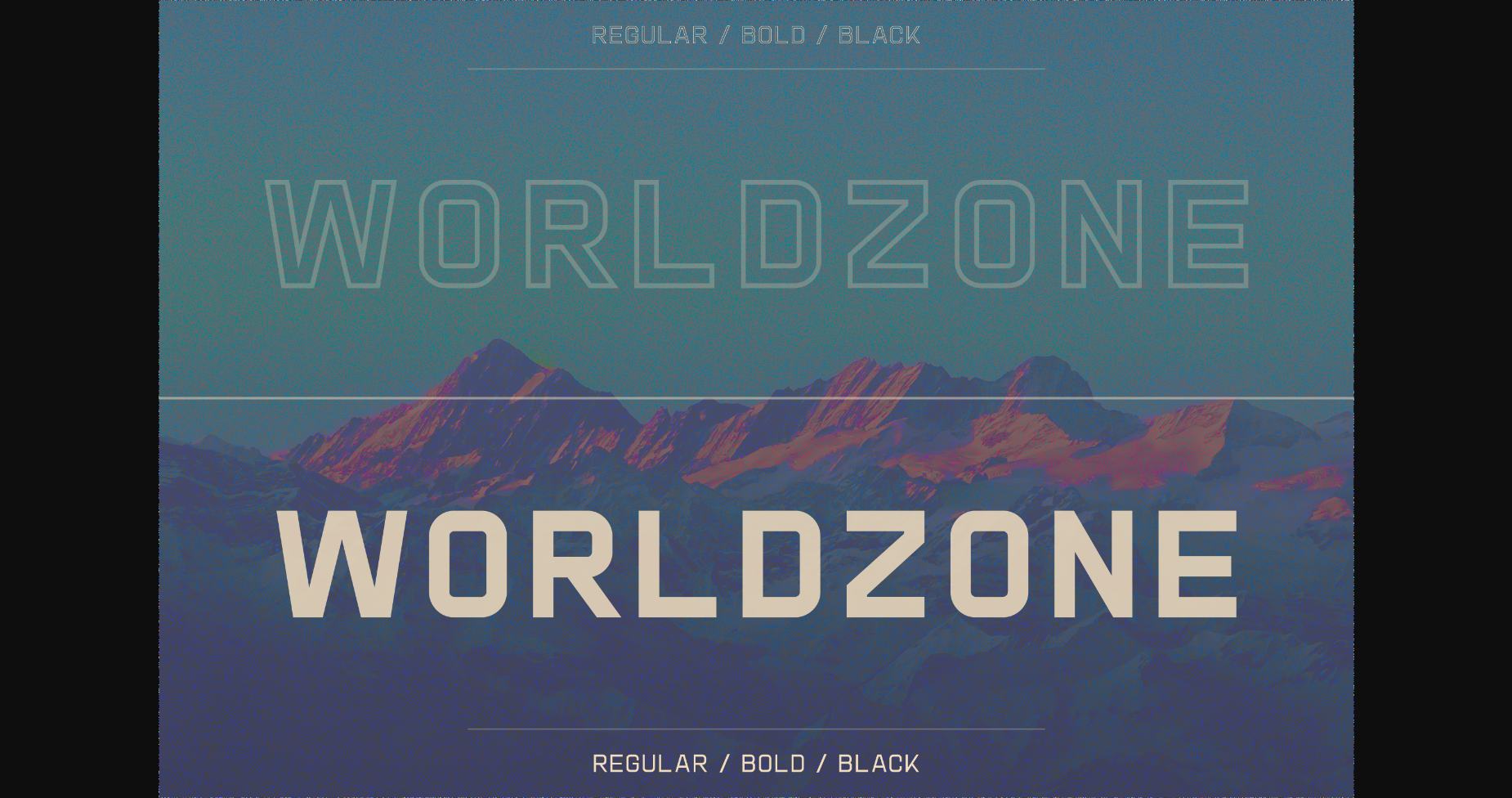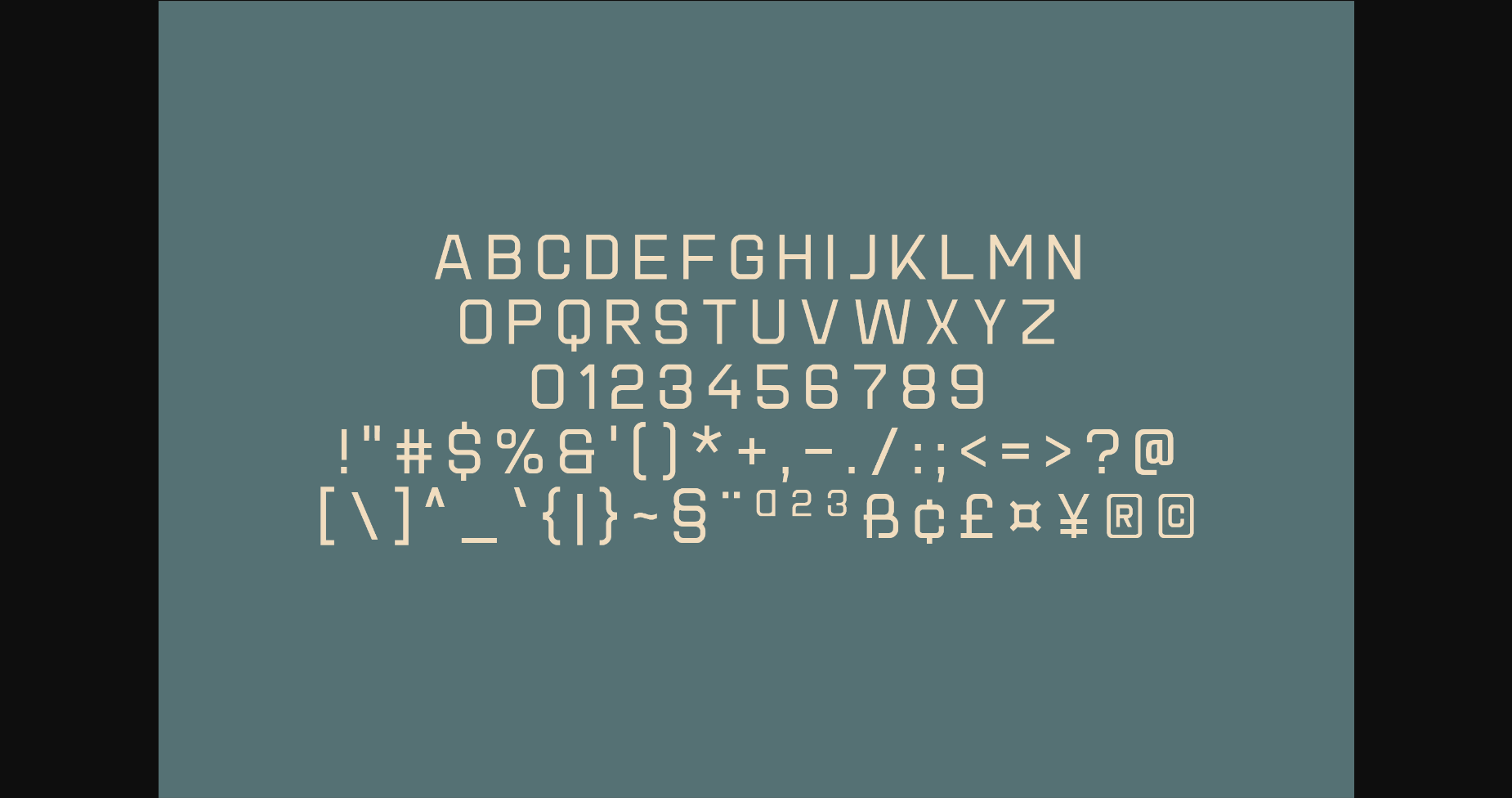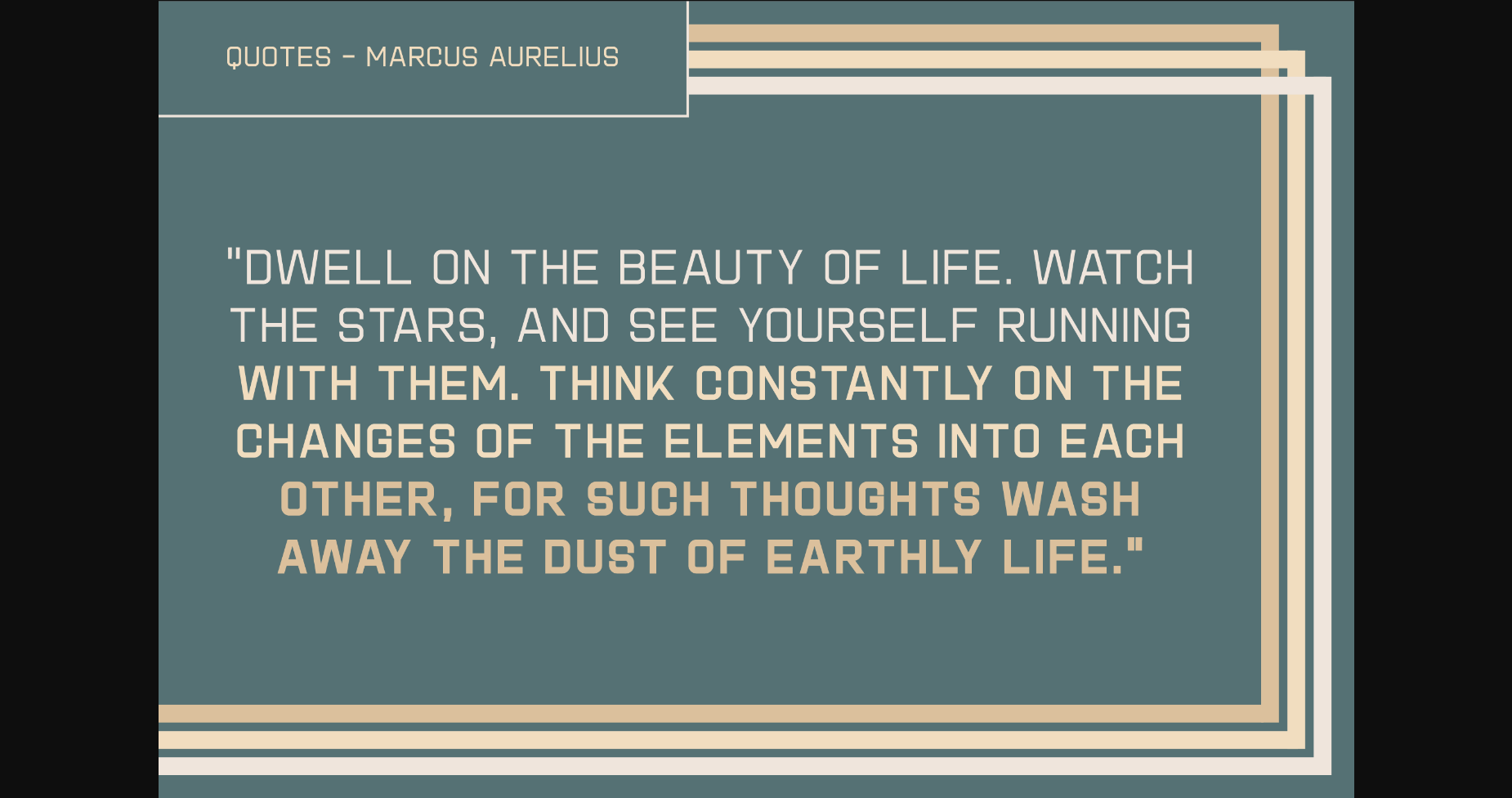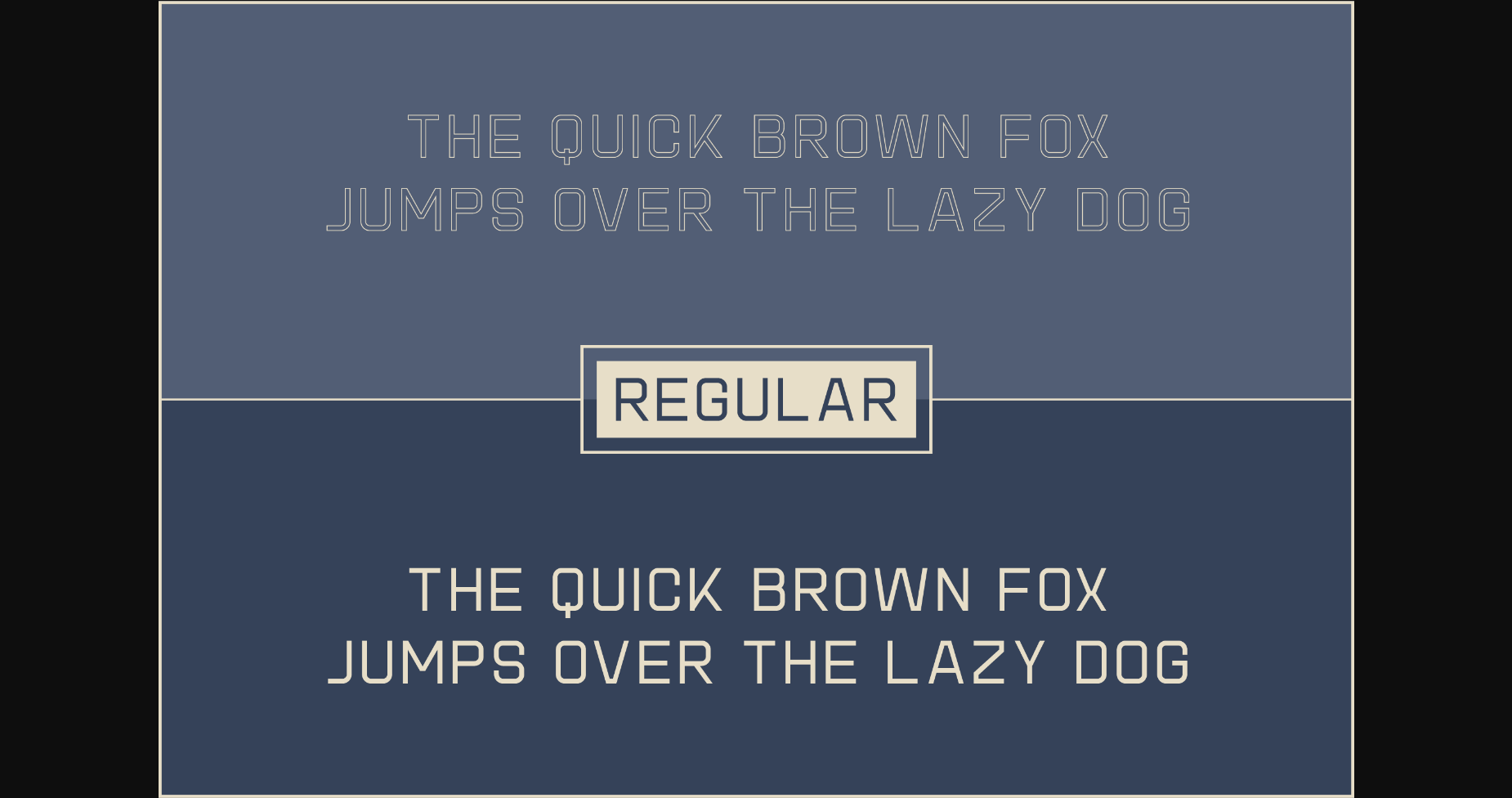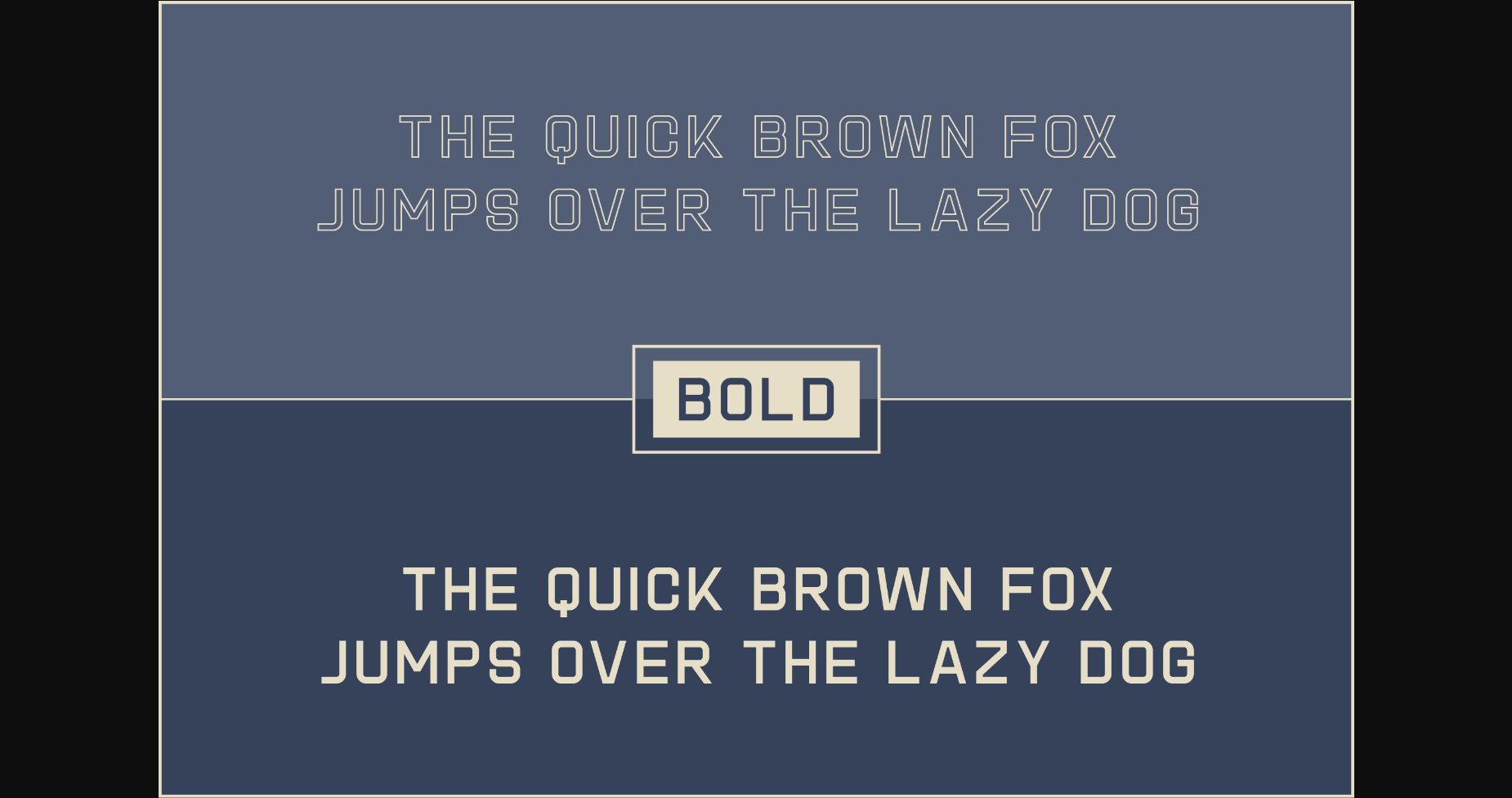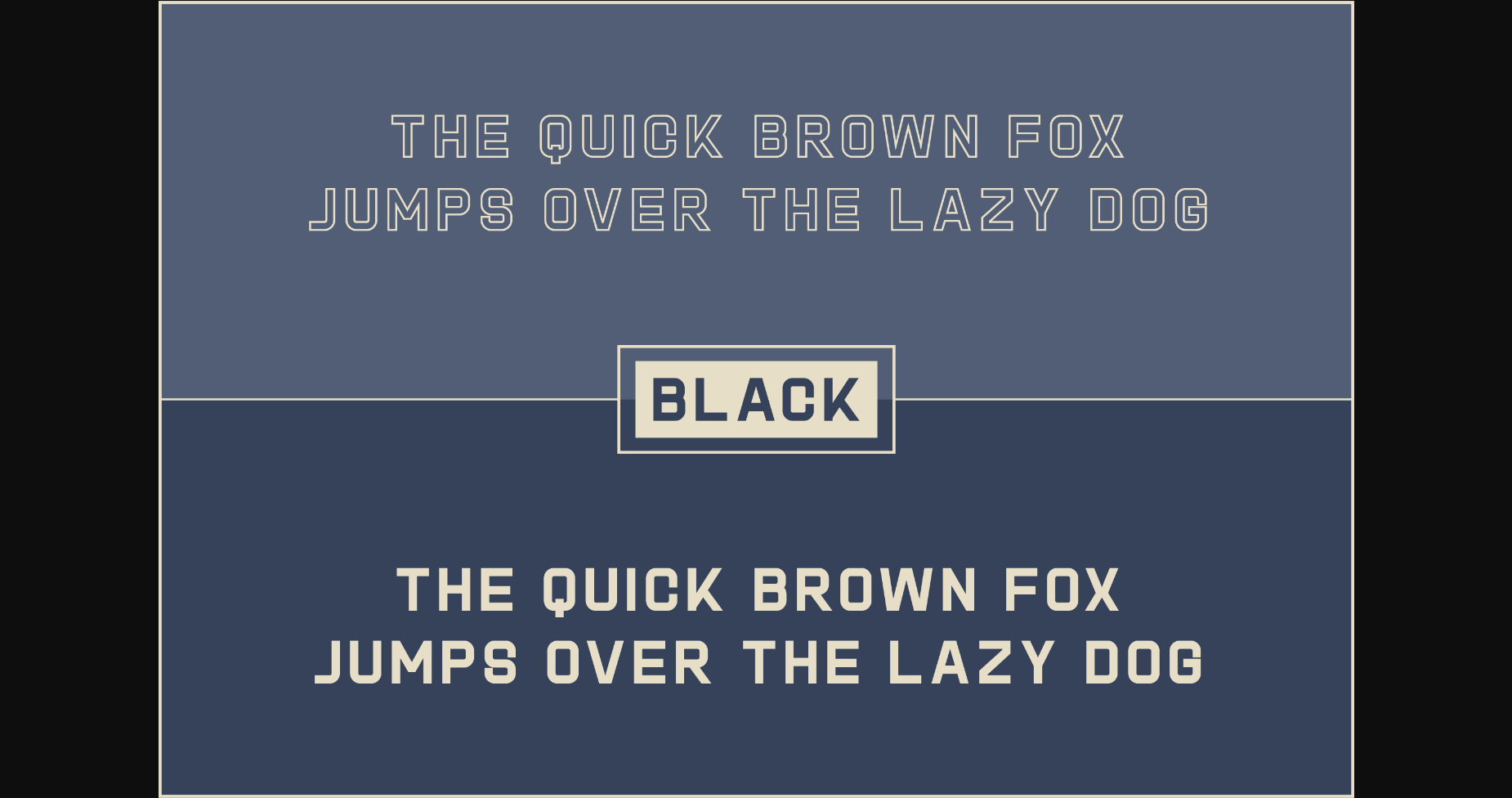
About Worldzone Font
Worldzone is a stunning and impactful sans-serif font that commands attention and makes a bold statement. This font features bold and dynamic letterforms with a strong and powerful presence. Ideal for creating impactful headlines, logos, or any design project where a sense of strength and authority is needed. Make your designs stand out with this stunning font.